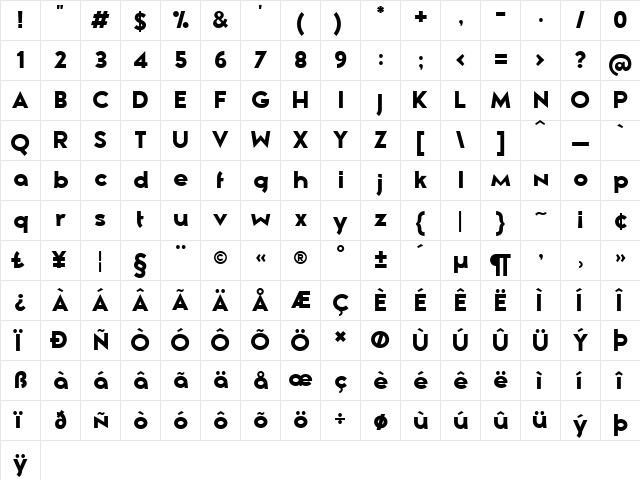
Zeronero Black
| Foundry | Studio Monocromo |
| Designer | Studio Monocromo - Monofonts |
Design Context for Zeronero Typeface
Zeronero offers clean, dependable letterforms without strong stylistic allegiance, making it a practical choice for designers who need flexibility.